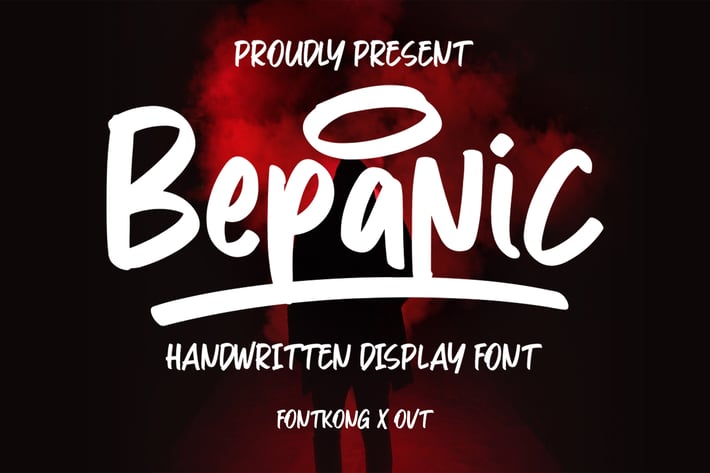
Bepanic - Handwritten Display Font
Introducing "Bepanic," a handwritten display font that brings expressive lines and bold statements to your design projects. Perfect for graphic designers, illustrators, and creatives looking to infuse their work with dynamic and personal flair, Bepanic offers a striking and energetic script that stands out.
Ideal for posters, logos, album covers, social media graphics, and branding, Bepanic's vibrant and spontaneous strokes provide a distinctive and memorable aesthetic. Each character is meticulously crafted to reflect the raw authenticity of hand-drawn lettering, ensuring your designs resonate with personality and vigor.
The "Bepanic" font includes a complete set of uppercase and lowercase letters, numbers, punctuation marks, and special characters. This comprehensive set allows for seamless integration into various design projects, from eye-catching headlines to unique branding elements.
Infuse your projects with bold creativity using Bepanic, the handwritten display font that adds expressive energy to every design.